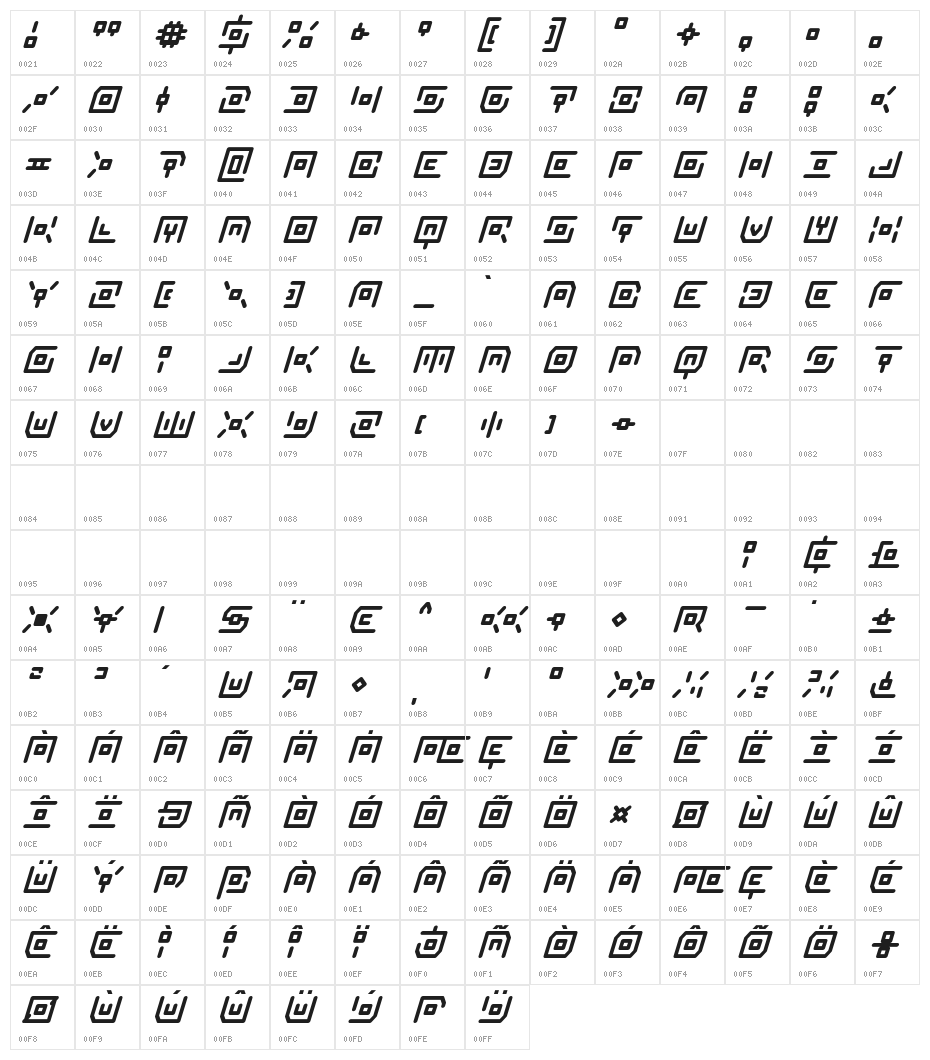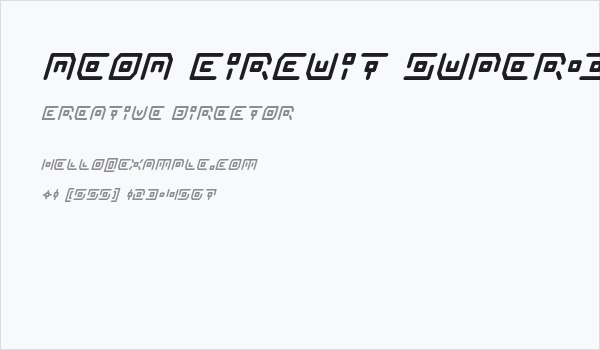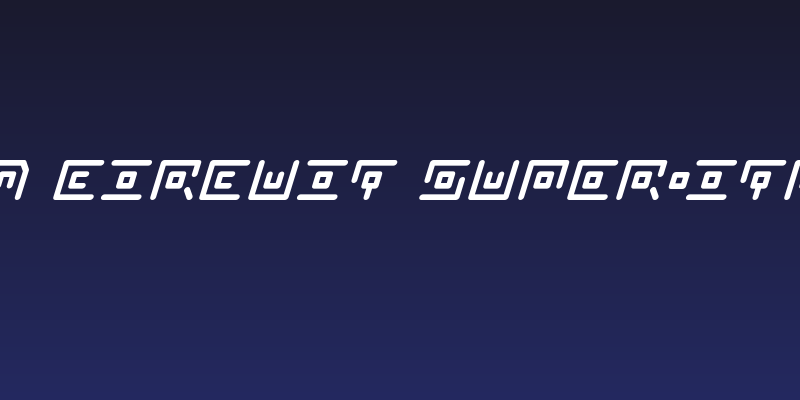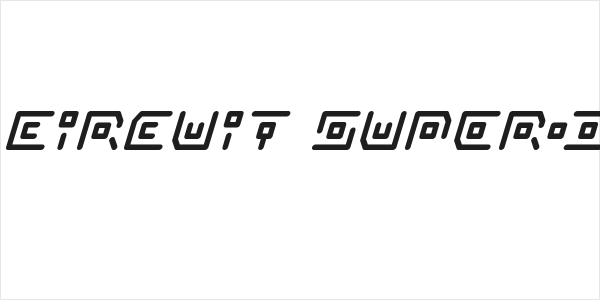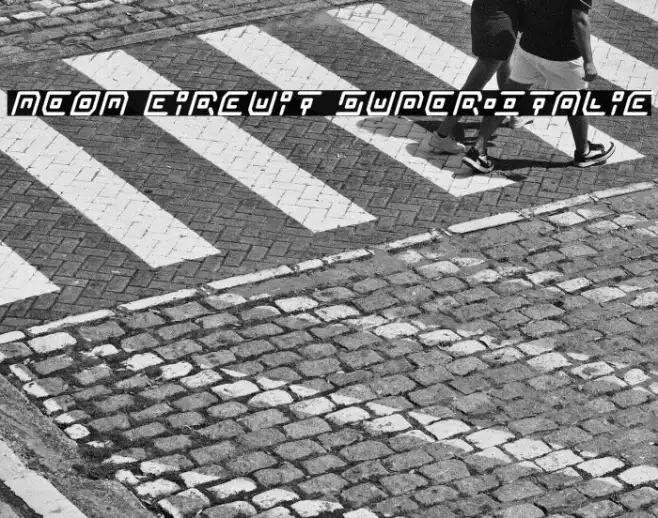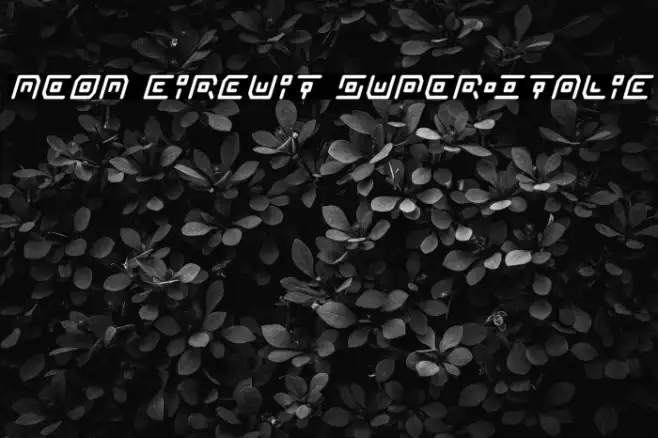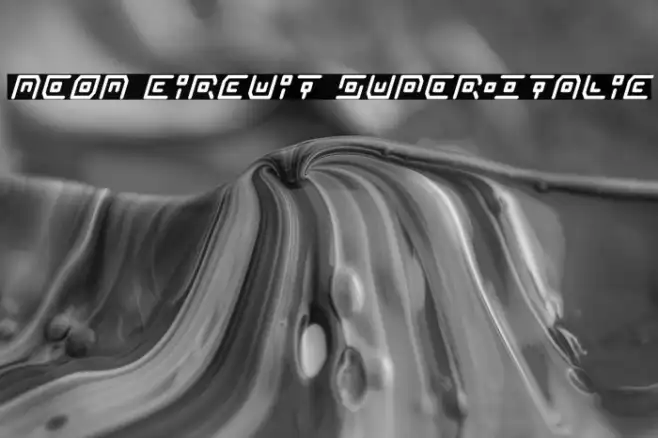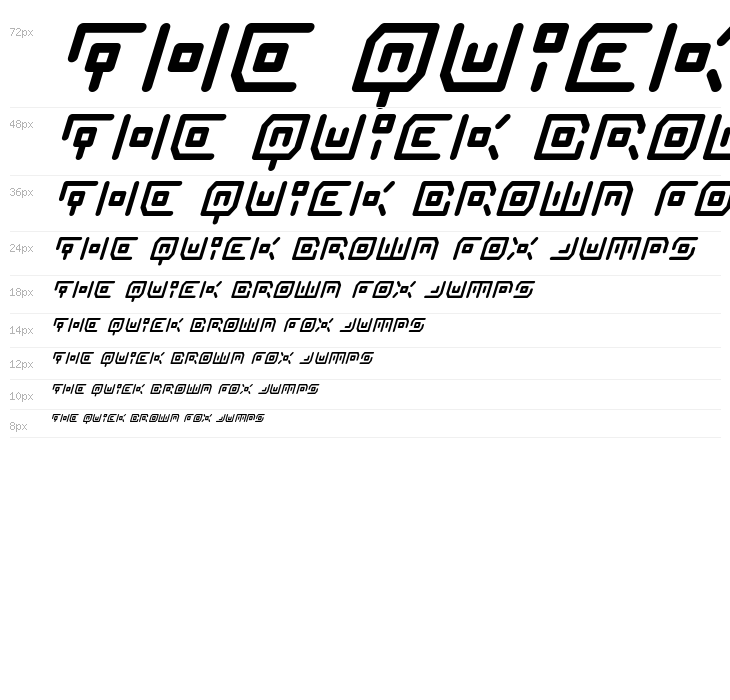
Neon Circuit Super-Italic Font
Neon Circuit Super-Italic Description
This font features a futuristic and digital aesthetic, characterized by its geometric shapes and circuit-like patterns. The letters are designed with sharp angles and a consistent italic slant, giving it a dynamic and forward-moving appearance. The strokes are bold and uniform, with a medium contrast that emphasizes the tech-inspired design. The font's unique style is reminiscent of neon lights and electronic circuits, making it ideal for projects that require a modern and high-tech look. The spacing between characters is normal, ensuring readability while maintaining its distinctive style.
| Proposed Projects | Ideal for tech-related branding, video game titles, sci-fi movie posters, and digital art projects. |